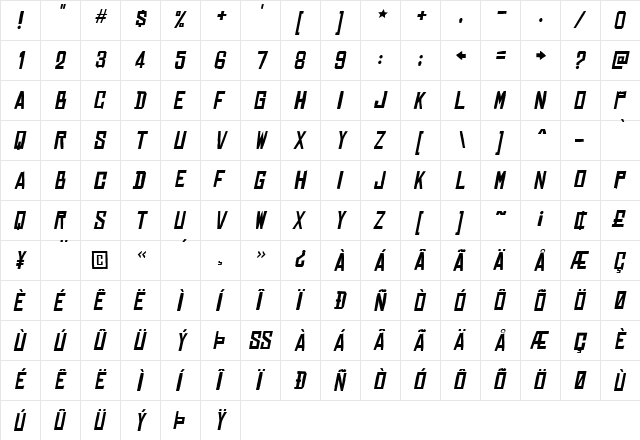
Chinese Rocks Italic
Design Context for Chinese Rocks Typeface
Chinese Rocks offers clean, dependable letterforms without strong stylistic allegiance, making it a practical choice for designers who need flexibility. The slanted form adds forward momentum and visual energy.
Pro Tip: Use Chinese Rocks for emphasis, pull quotes, and subheadings where its slanted energy can add rhythm to the layout.